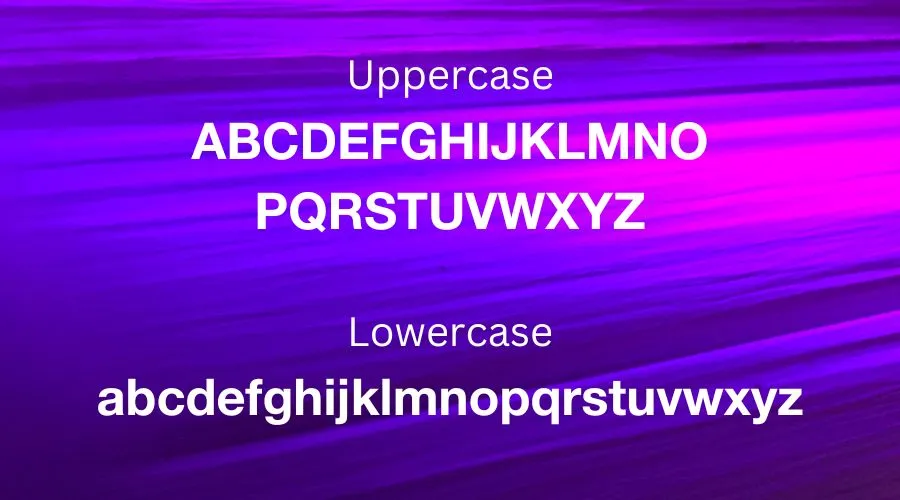
Helvetica Neue Bold Font
About Helvetica Neue Bold Font
The Helvetica Neue Bold Font s designed by Max Edouard Hoffmann. Helvetica Neue offers family package choices and 160 exquisitely varied designs. One of the Helvetica font family's Sans Serif fonts is the Helvetica Neue Bold typeface.
When Walter Cunz updated the design for Linotype GmbH in Frankfurt, a big stockholder in Stempel and a major shareholder in D. Stempel AG, a key shareholder in Haas, the name was changed to Helvetica an adaptation of Helvetia, the Latin word for Switzerland.
Condensed and extended forms as well as extreme weights were eventually modified and added to Helvetica, which was initially created as a powerful Centre series.
A method that matched Linotype's marketing and mechanical philosophies but produced a family of weights that weren't as cohesive as they may have been.